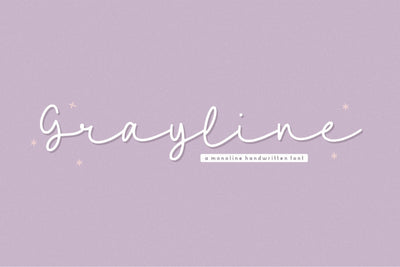
Grayline Monoline Handwritten Font
Proudly Present, Grayline Font.
Grayline is a Monoline Handwritten Font.
This font is suitable for use in your design projects.
It is perfect for wedding, event, invitation, escort card, table number, header menus, display, logos, slider blog, custom address, stamps, packaging, greeting card, etc.